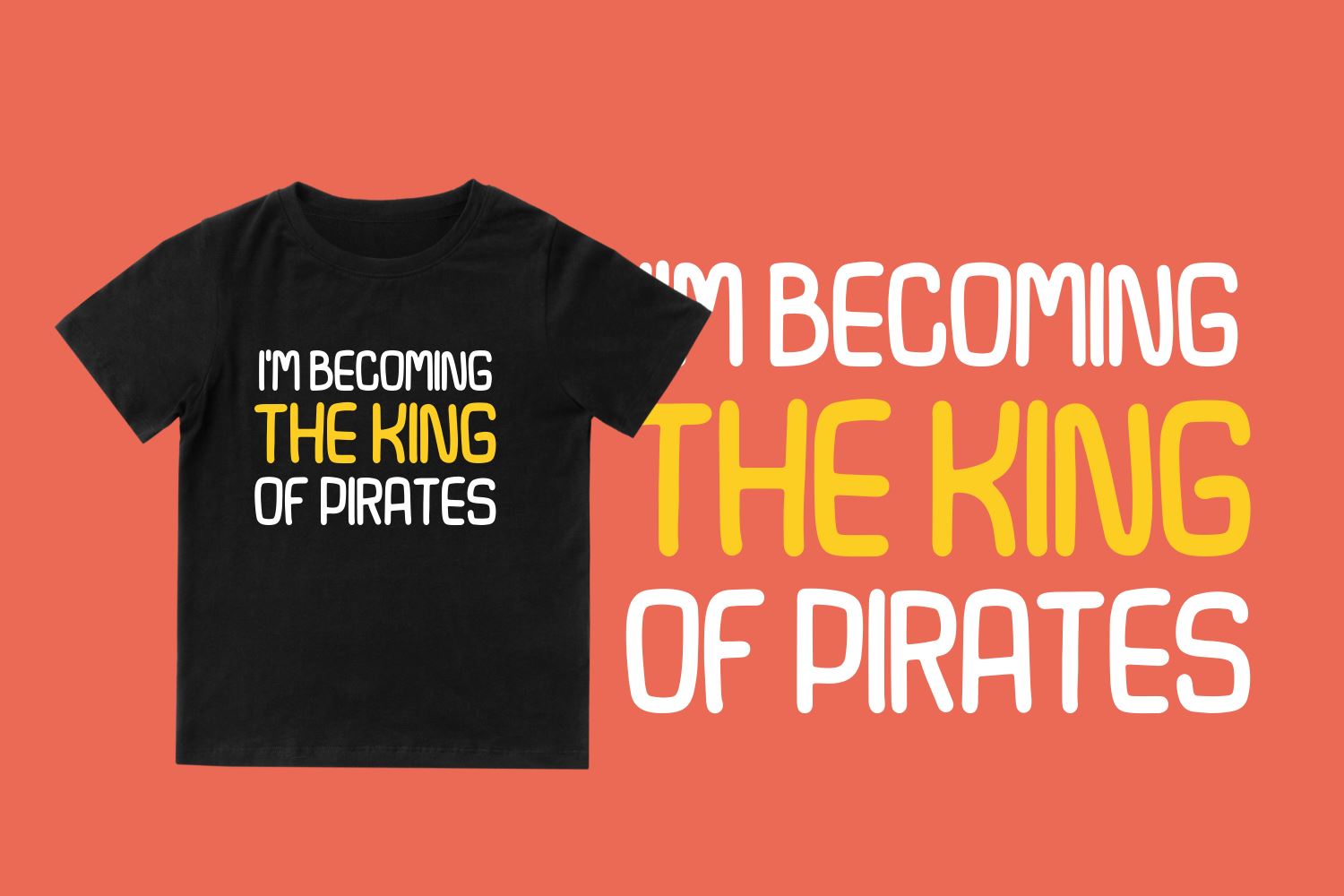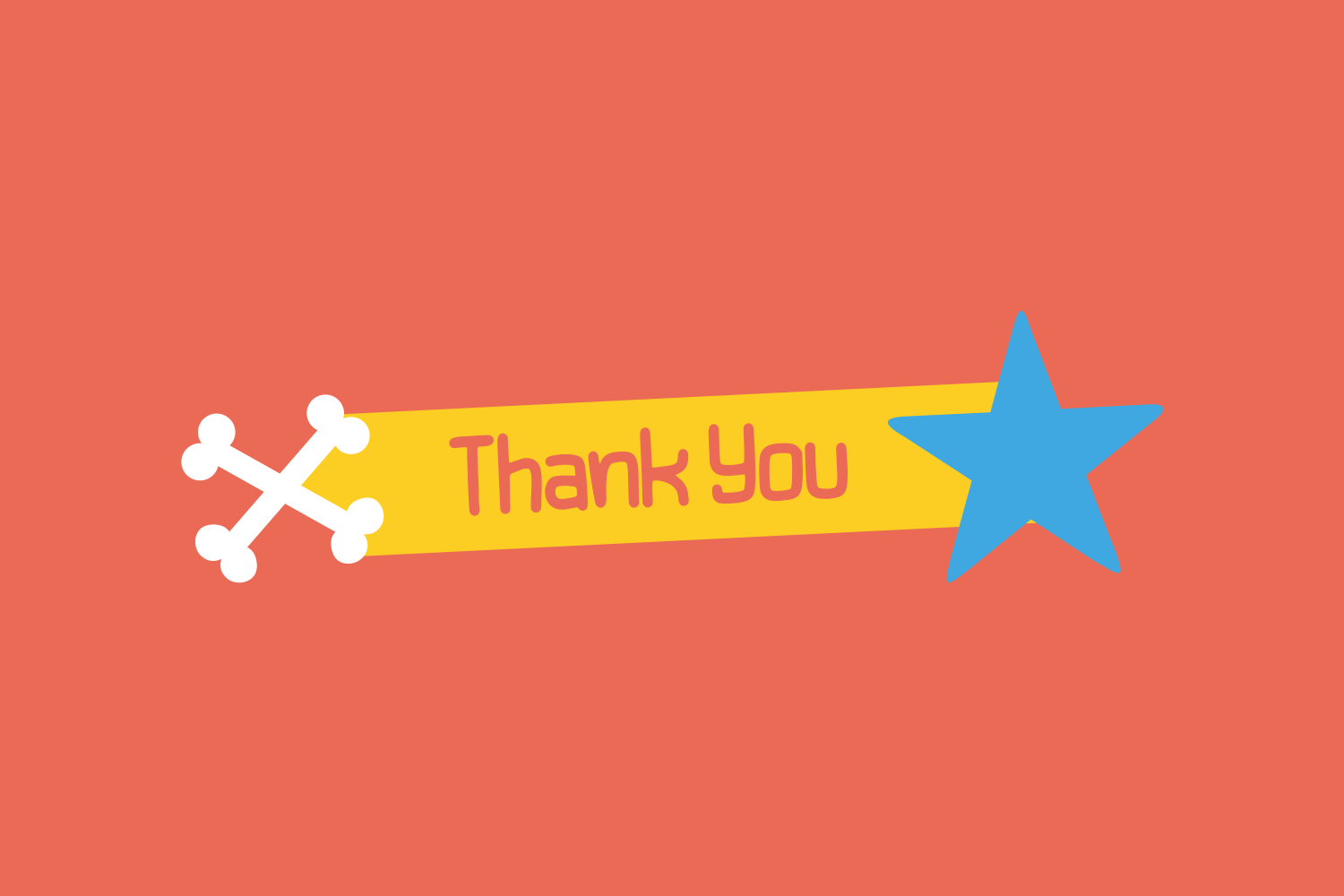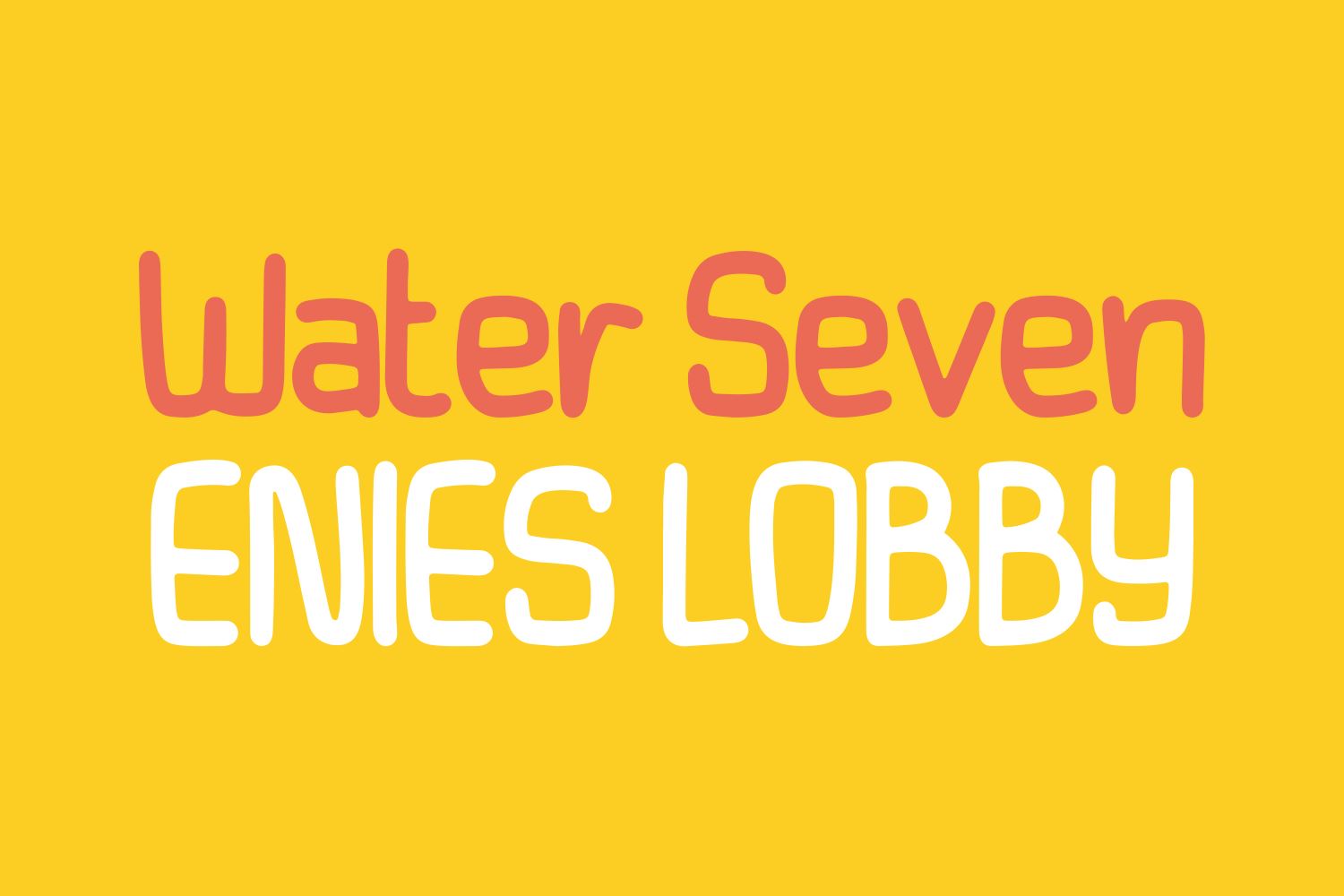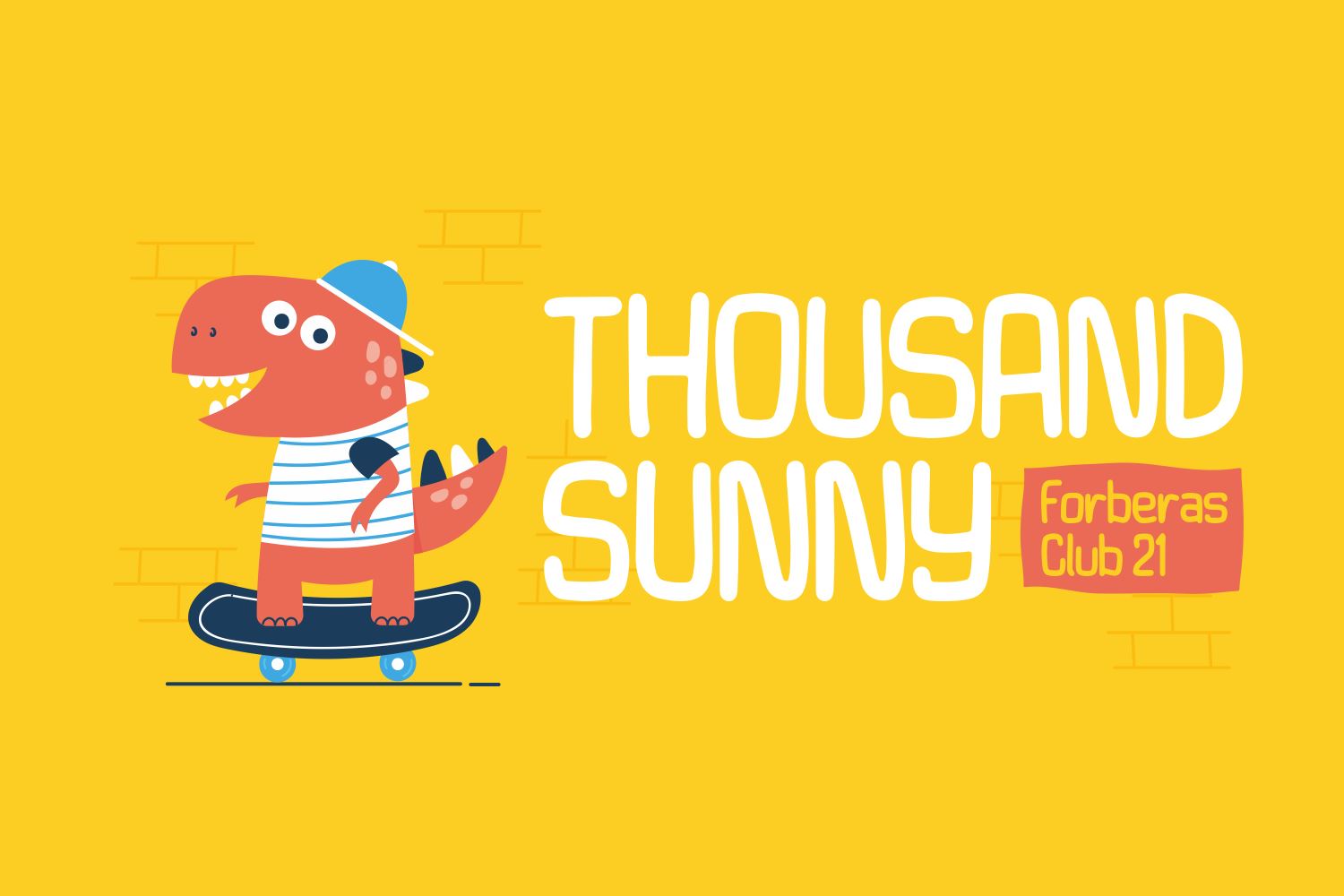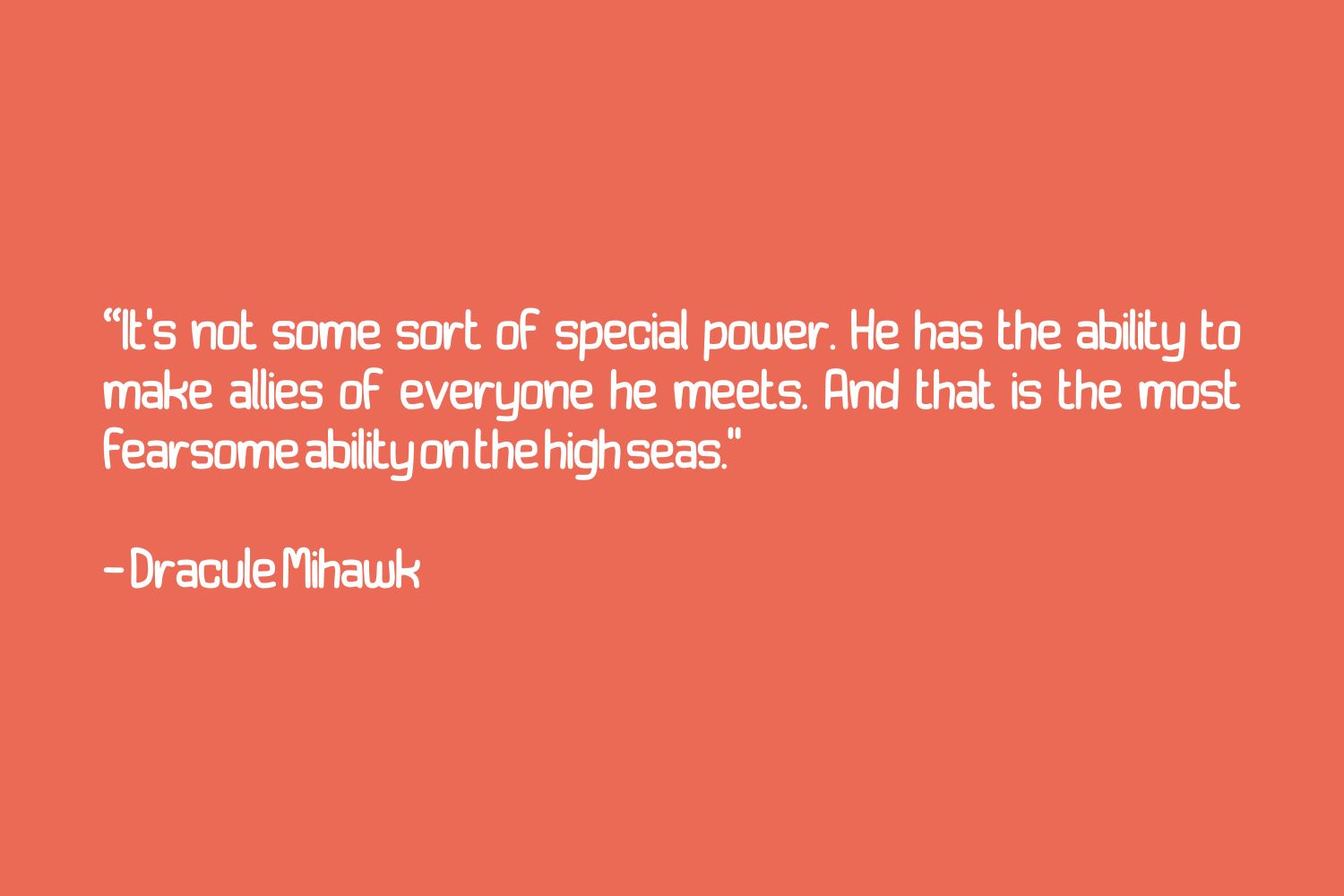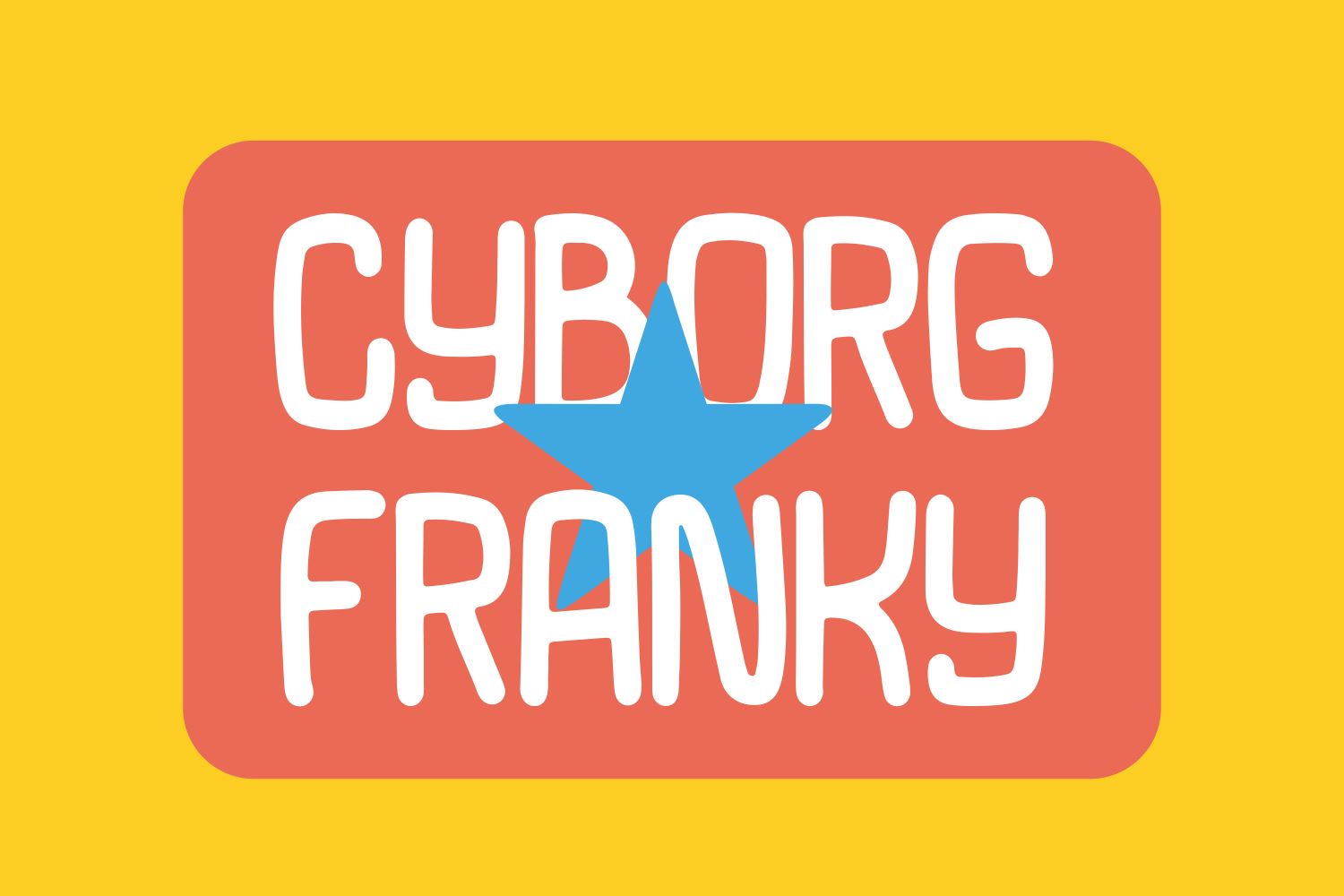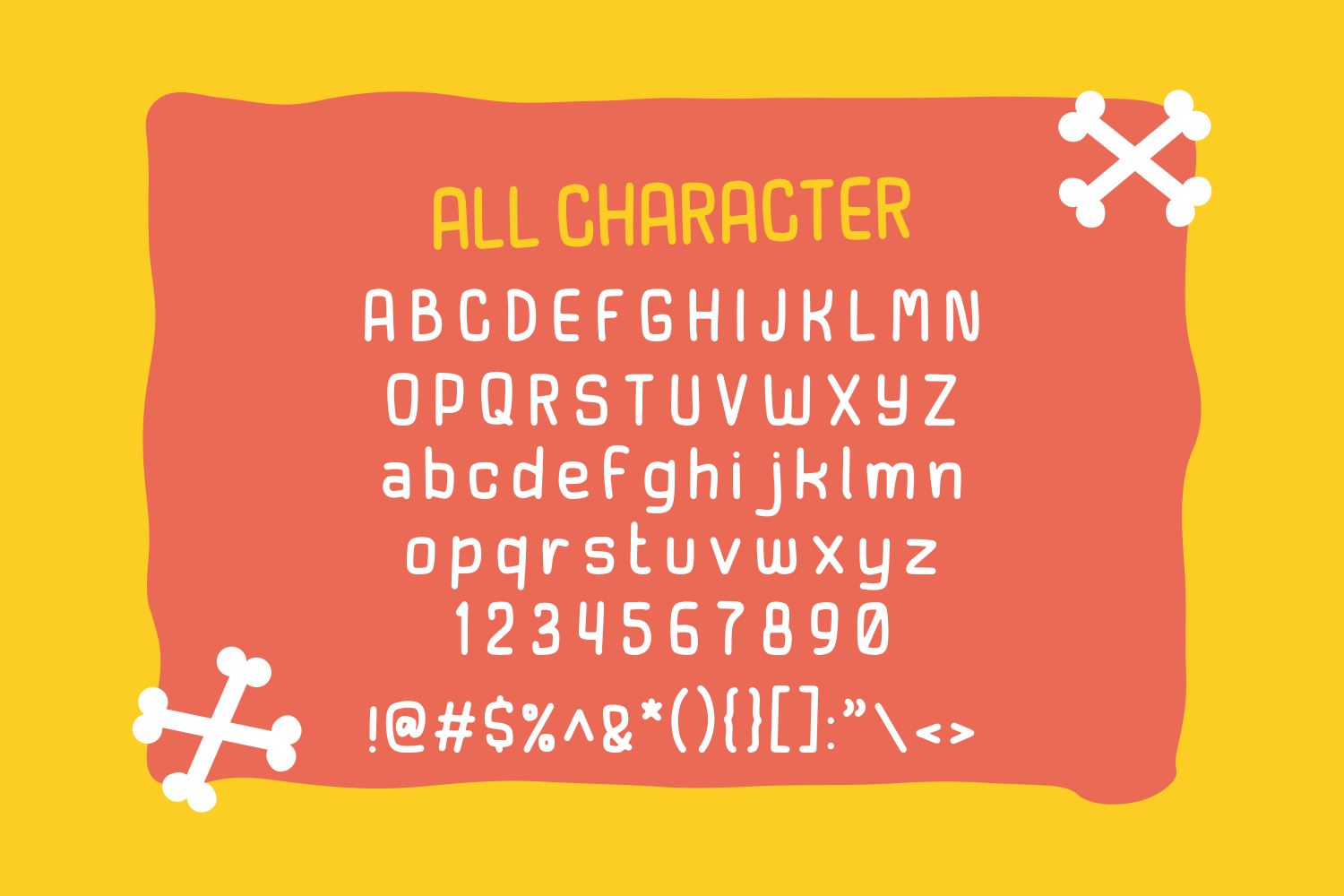
Thousand Sunny
About Thousand Sunny
Introducing Thousand Sunny Font by Forberas Club Thousand Sunny is a Modern Handwritten Font. Thousand Sunny is perfect for book cover, product packaging, branding project, megazine, social media, wedding, or just used to express words above the background.This font includes TTF and OTF, This font also multilingual support.